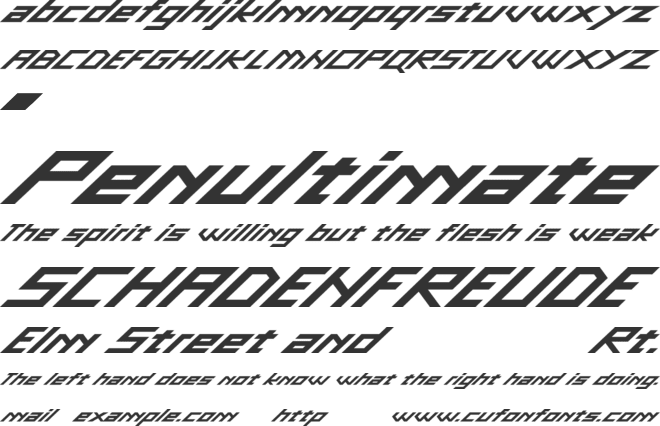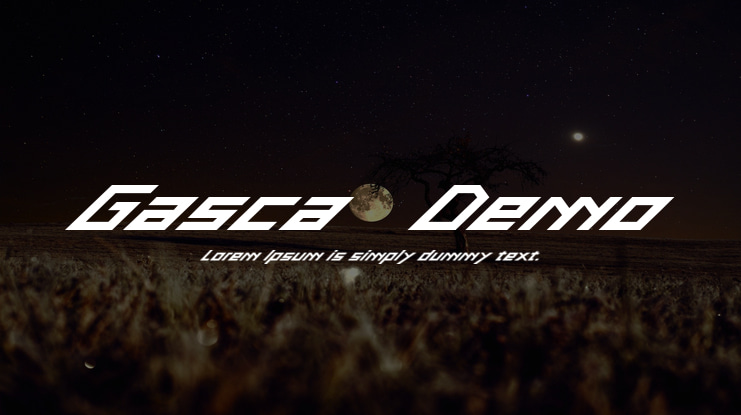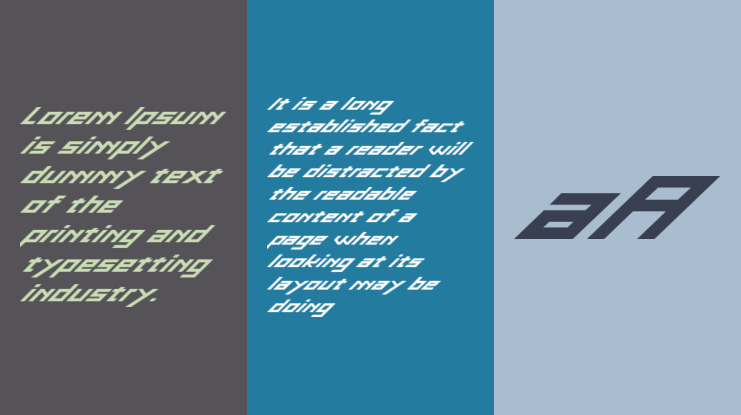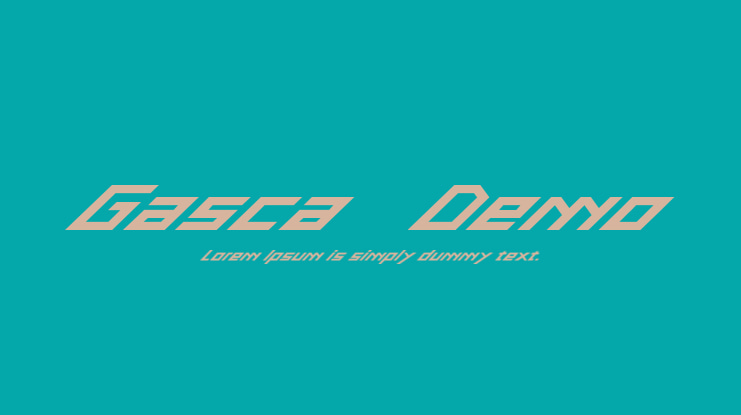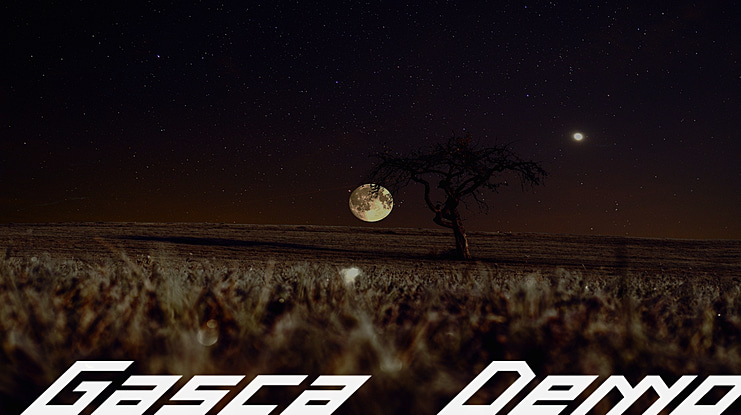
Gasca-Demo Font
Emanuel Istvan
Gasca is an extremely modern, futuristic, italic looking typeface with upper case and low cases, supporting multilingual characters. In the near future it will come with multiple weights. Until then enjoy it in this version and tell me what you think.